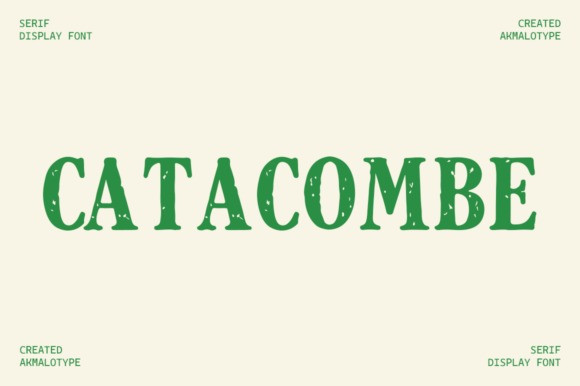
Catacombe Font
Catacombe Font, a time-honored serif font graced with an extraordinary stamp-like texture. Its customary outlines make it a prime choice for breathing life into logos, enhancing digital artistry, and bestowing a nostalgic touch to your quotes and designs. Precision-crafted to elevate your creative undertakings to unparalleled heights, Catacombe stands as your essential typeface to imbue a distinguishing artistic allure. Embarking on a journey with this vintage serif marvel, your creativity blossoms to its full potential. Mesmerizing and multi-faceted, each line weaves a captivating narrative, crowning Catacombe as the quintessence of timeless elegance intertwined with contemporary design.